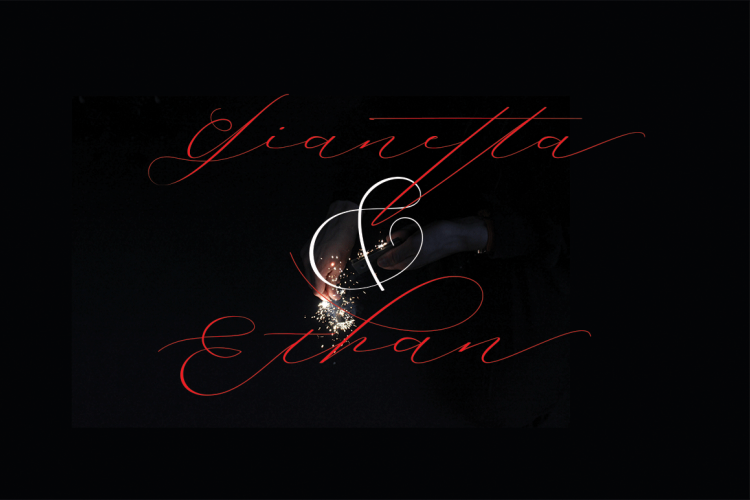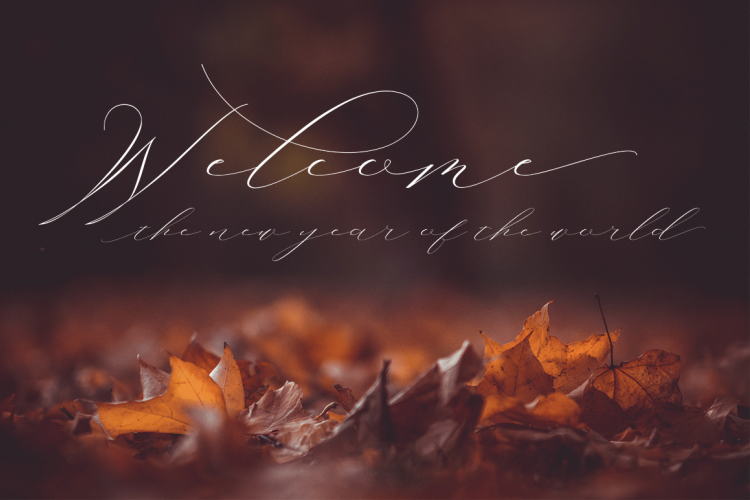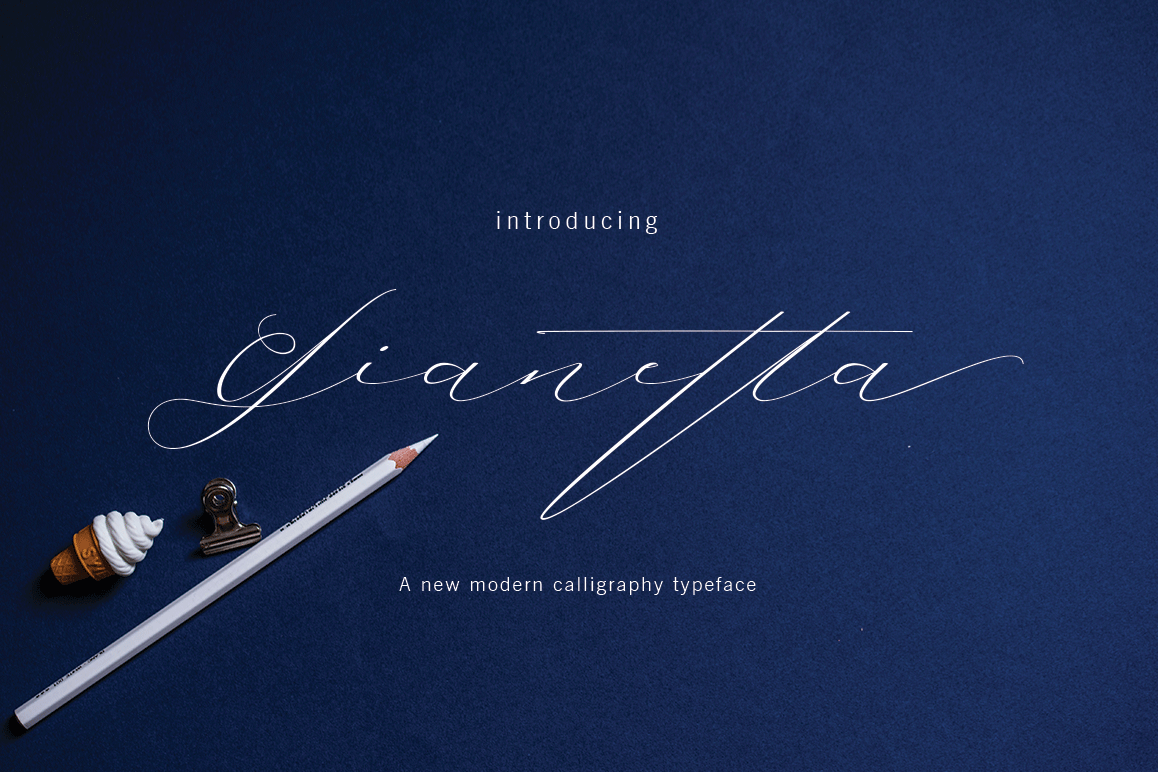
Gianetta Script Font
Gianetta a work that is purely handwritten, has its own characteristics. It is perfect for invitations, signatures, blogs, social media, business cards, product brands.
Gianetta has stylish standards, Alternate Stylistic, Stylistic Sets and ligatures. and includes uppercase and lowercase letters, numbers and punctuation.